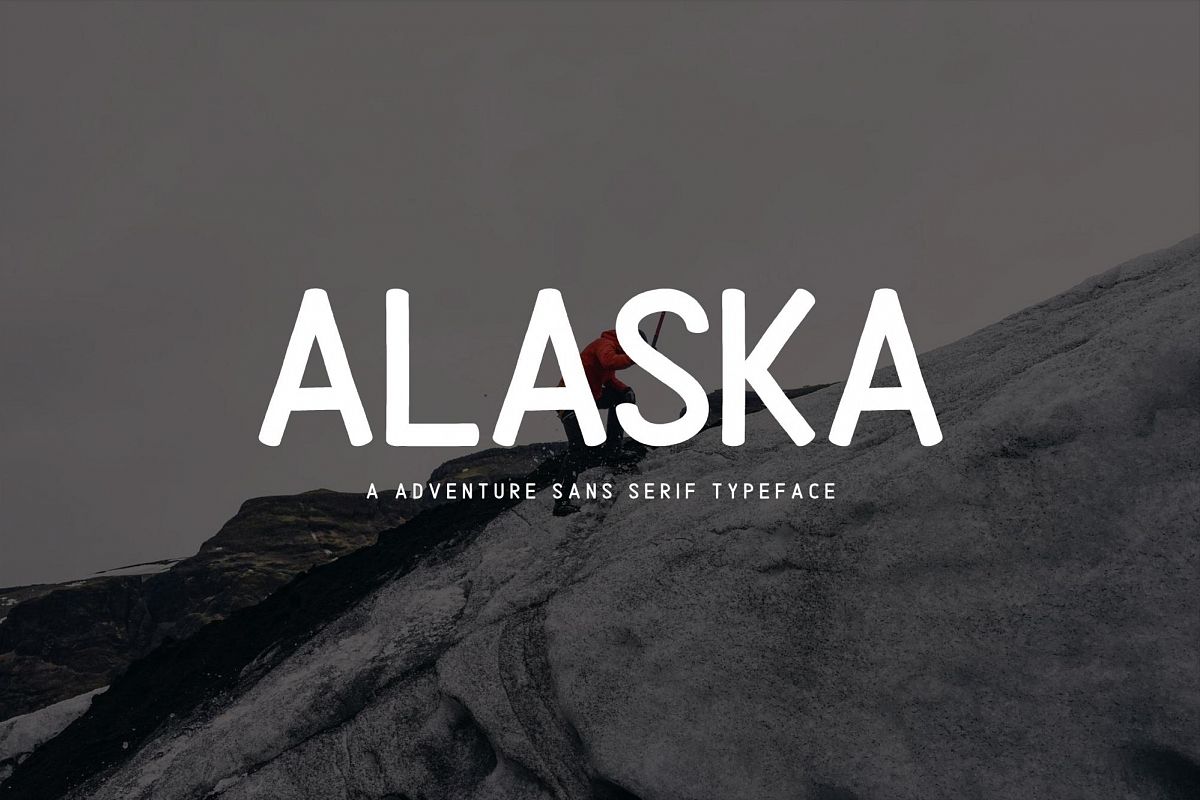
Alaska Typeface Font
Alaska
Alaska | A Adventure Sans Serif Typeface
Introducing Alaska Sans Serif! - A Adventure, minimalist and awesome character! It's perfect for magazine layouts, invitations, headers, or even large-scale artwork.